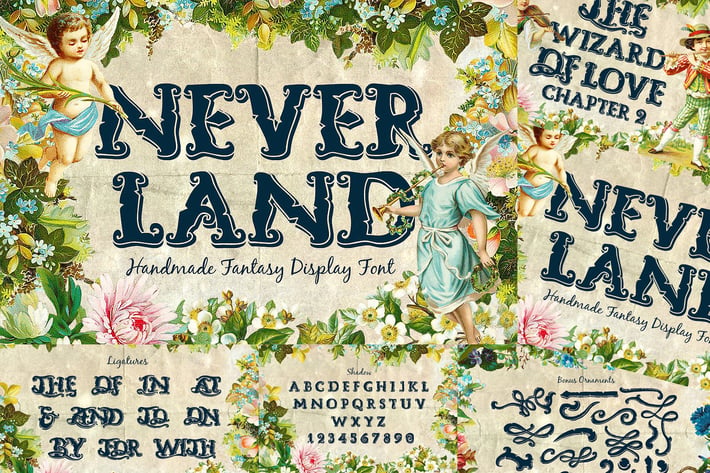
Neverland Fantasy Display Serif Vintage Font
Neverland Fantasy Display Serif Font
Inspired from vintage fantasy movie posters and classic graphic novel cover. The AXR Neverland is an epic typeface for you to make the design feel wonderful due to your imaginative fantasy idea.
Explore your idea and make an impressive environment for your graphic project by using this two type of fonts, whether the shadowed or regular one they will represent your epic idea, your everlasting fantasy style project! Imagine of Alice In Wonderland, Wizard Of OZ or Narnia.
Ligatures including : The, Of, In, At, And, To, On, By, For, With.
Glyph including ampersand (&)